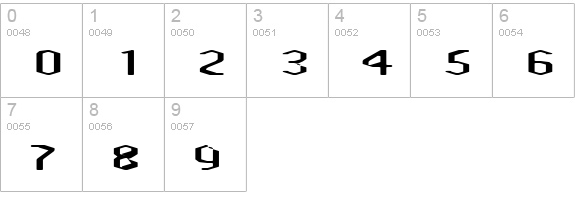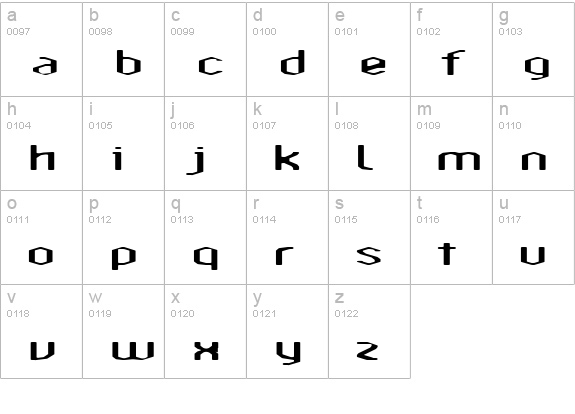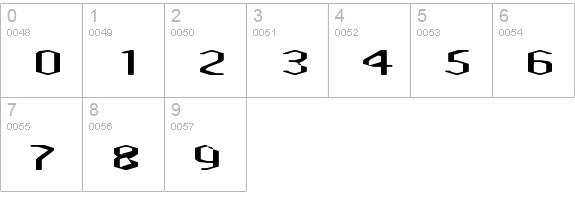
Amosis Technik Font Details
Amosis Technik font is a modern and sleek typeface that exudes a sense of innovation and technological advancement. With its sharp lines and geometric shapes, this font is perfect for projects that require a contemporary and cutting-edge look. The clean and bold design of Amosis Technik makes it ideal for use in branding, logos, headlines, and digital designs. What sets Amosis Technik font apart is that it is available for free download at FontsMarket.com. This means that you can easily access this high-quality font without any cost, making it a valuable resource for designers and creatives looking to enhance their projects with a stylish and professional touch. Whether you are working on a website, presentation, or print materials, Amosis Technik font will help you make a bold statement and stand out from the crowd. Download it today and elevate your designs with this sleek and modern typeface.